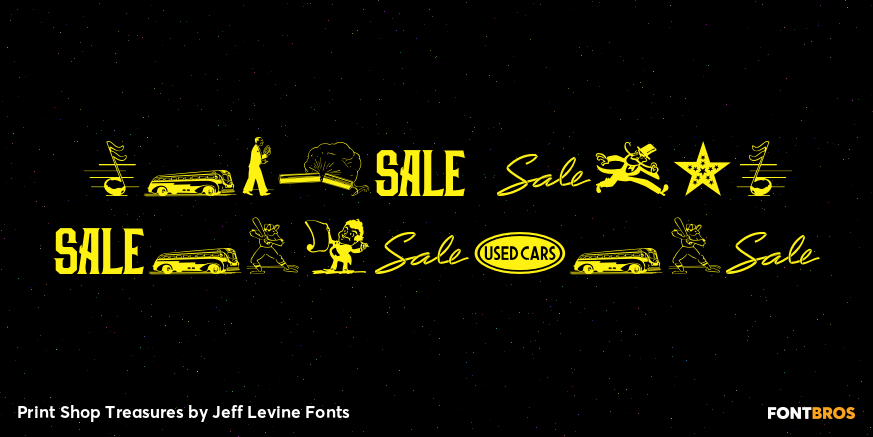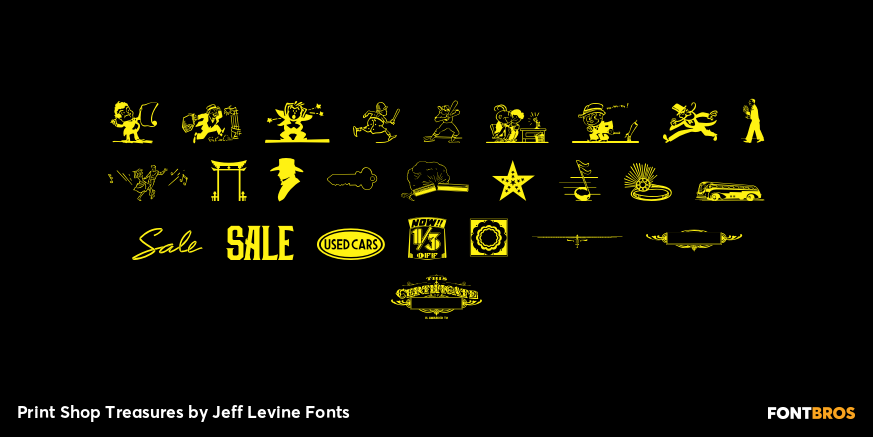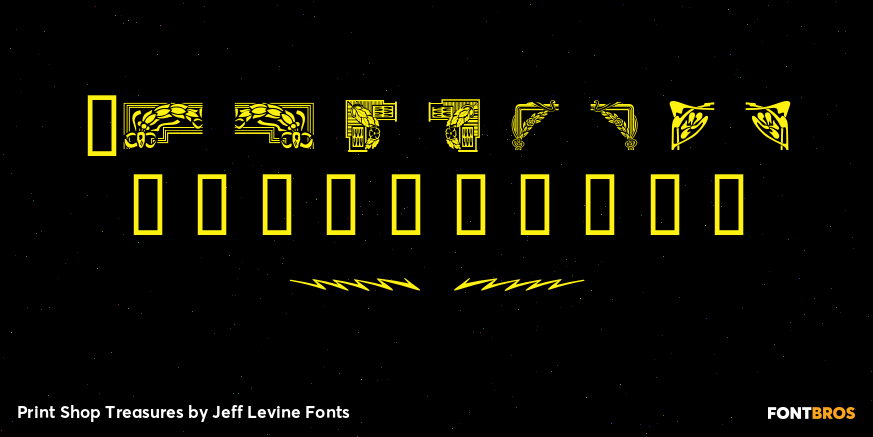
Print Shop Treasures
Print Shop Treasures JNL is another fun collection of nostalgic cartoons, stock cuts, corner pieces, embellishments, sales helpers and miscellany; all carefully re-drawn from examples of vintage letterpress pieces.